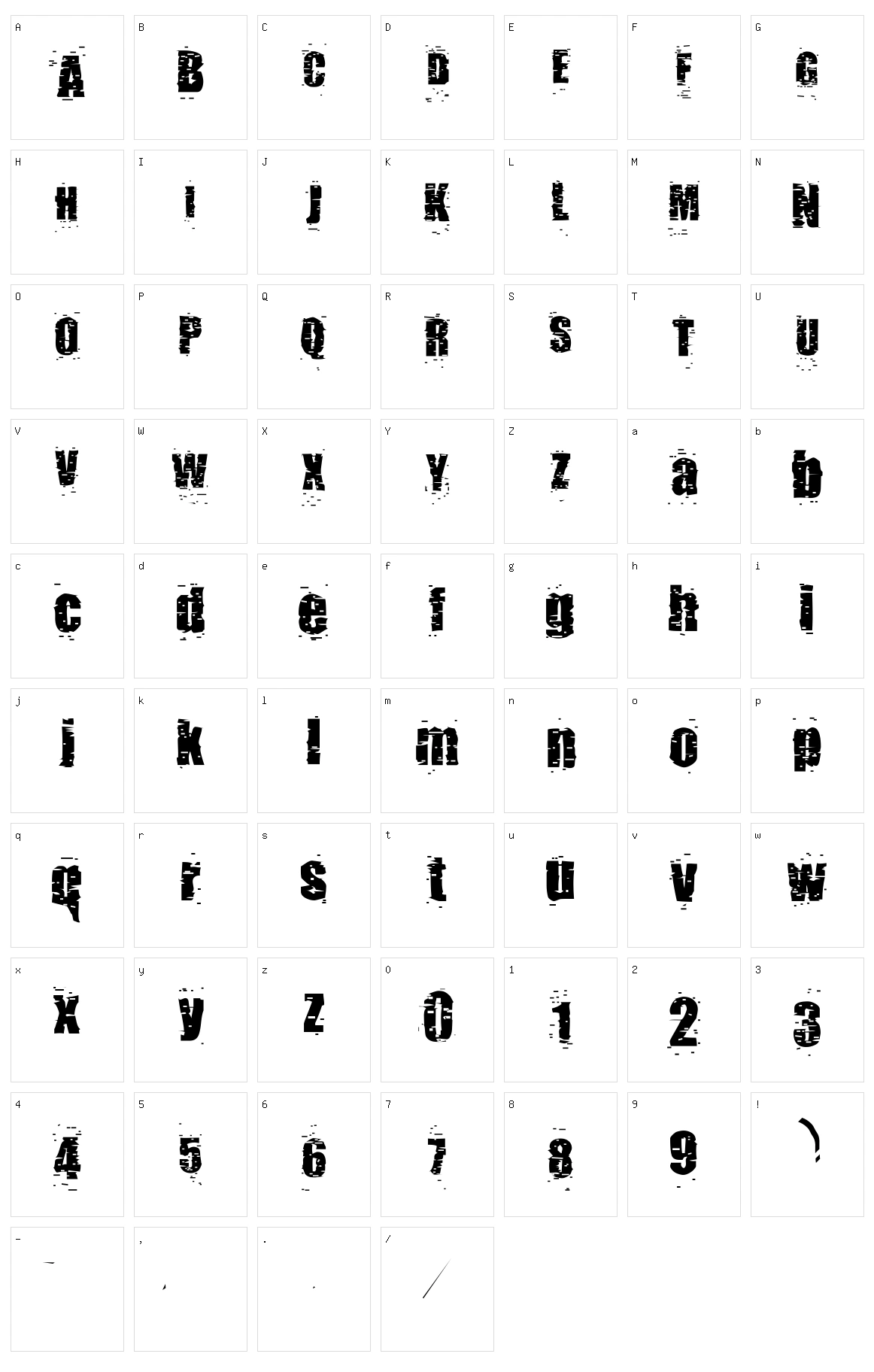
The free font Punkassbitch is carefully designed by MGM Designs, showcasing a thoughtful balance of creativity and usability and falls under the Destroy font style. When you download the ZIP file, it contains only 21.28 KB of font files, making it lightweight and quick to download. Please review the license details below to understand permitted usage and distribution rights. If license information is not available, we recommend using this font for personal projects only or contacting the author directly for commercial usage permissions.
pUNKASSBITCH is a font based on the typeface called "Impact". It was created
between the 4th and 8th of April, 1998 & it is _ofcourse_ freeware.